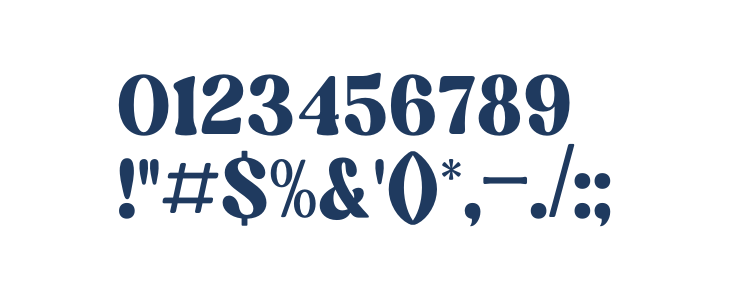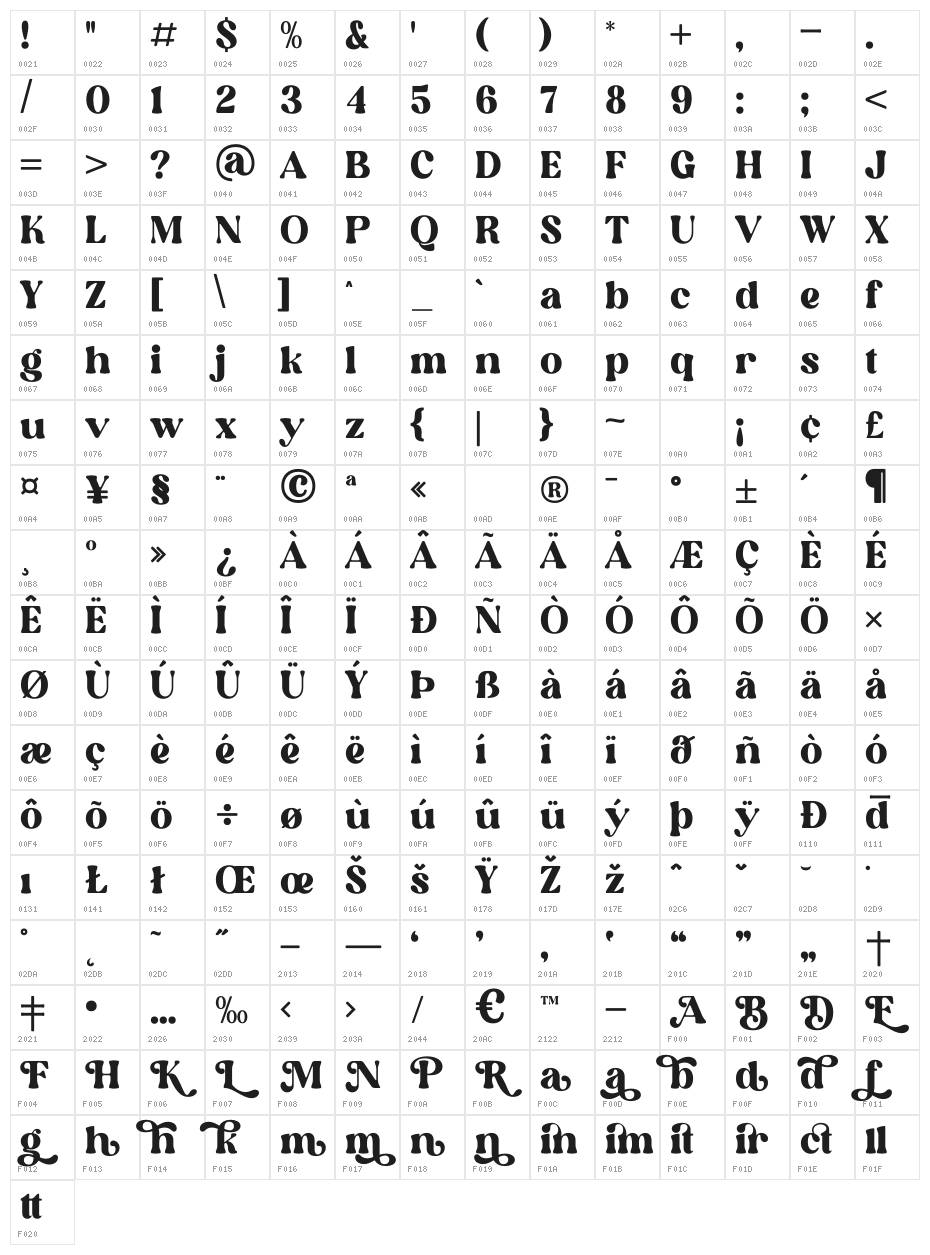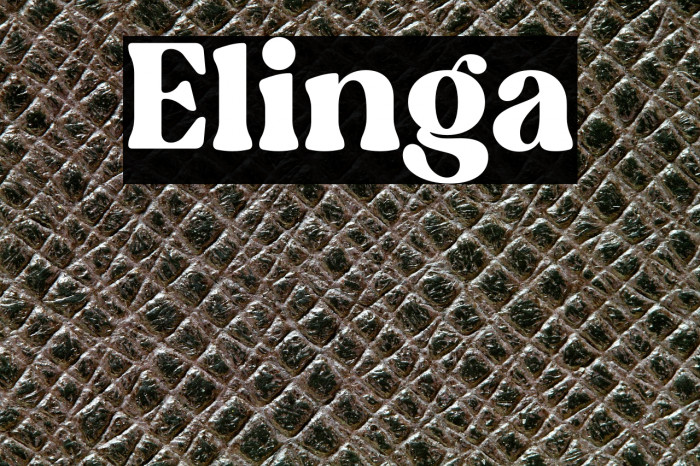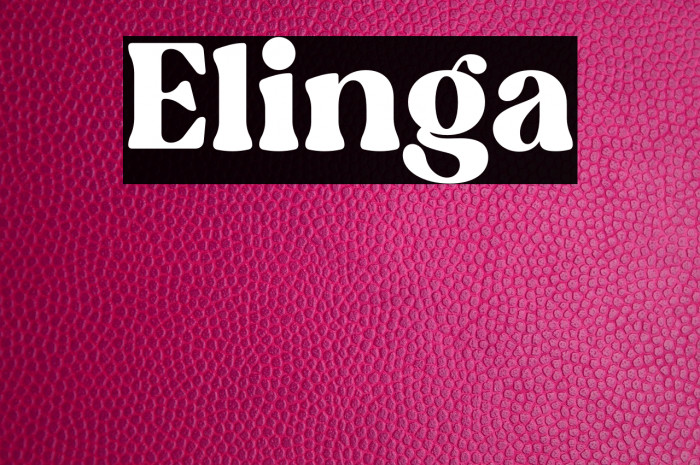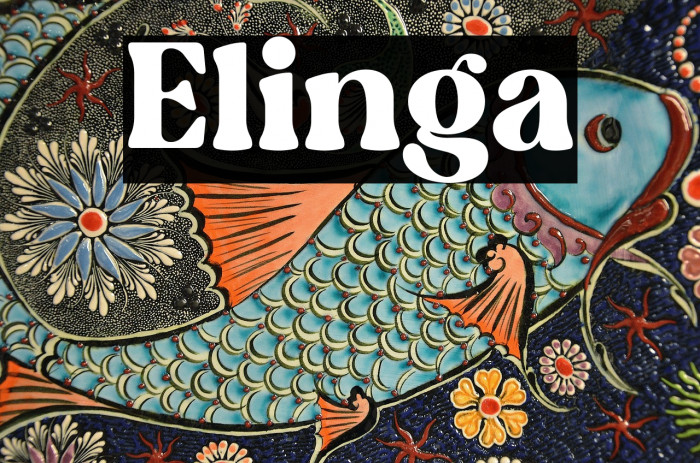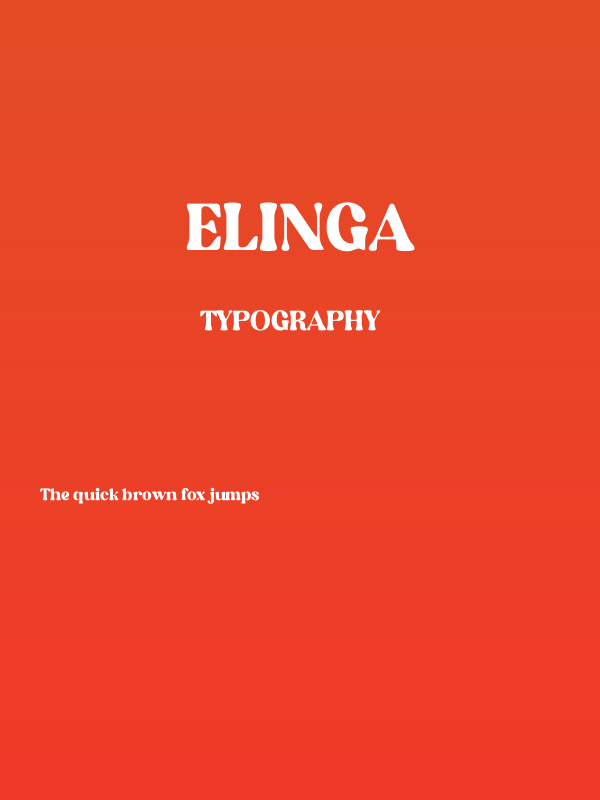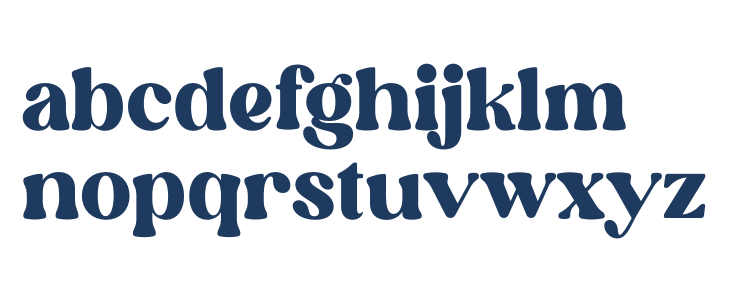
Elinga Font
Elinga Description
This font features bold, rounded characters with a playful and slightly retro aesthetic. The letters are thick and have a strong presence, making them ideal for attention-grabbing headlines or titles. The curves are smooth and consistent, giving the font a cohesive and polished look. The numbers and special characters maintain the same bold style, ensuring uniformity across all text elements. The overall design is both modern and nostalgic, reminiscent of vintage signage or posters.
| Overall Style | Vintage |
| Proposed Projects | Ideal for branding, posters, headlines, and any design project that requires a bold statement. |